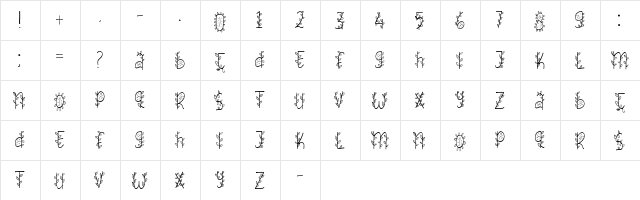
FOLIAGE Regular
| Designer | Oziel89 Studio |
Design Context for FOLIAGE Typeface
FOLIAGE is a composed and adaptable typeface that performs quietly and consistently across a wide range of design contexts.